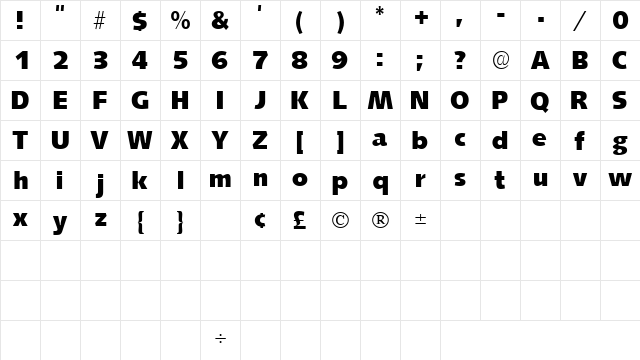
LansetteSSK Regular
Design Context for LansetteSSK Typeface
LansetteSSK offers clean, dependable letterforms without strong stylistic allegiance, making it a practical choice for designers who need flexibility.